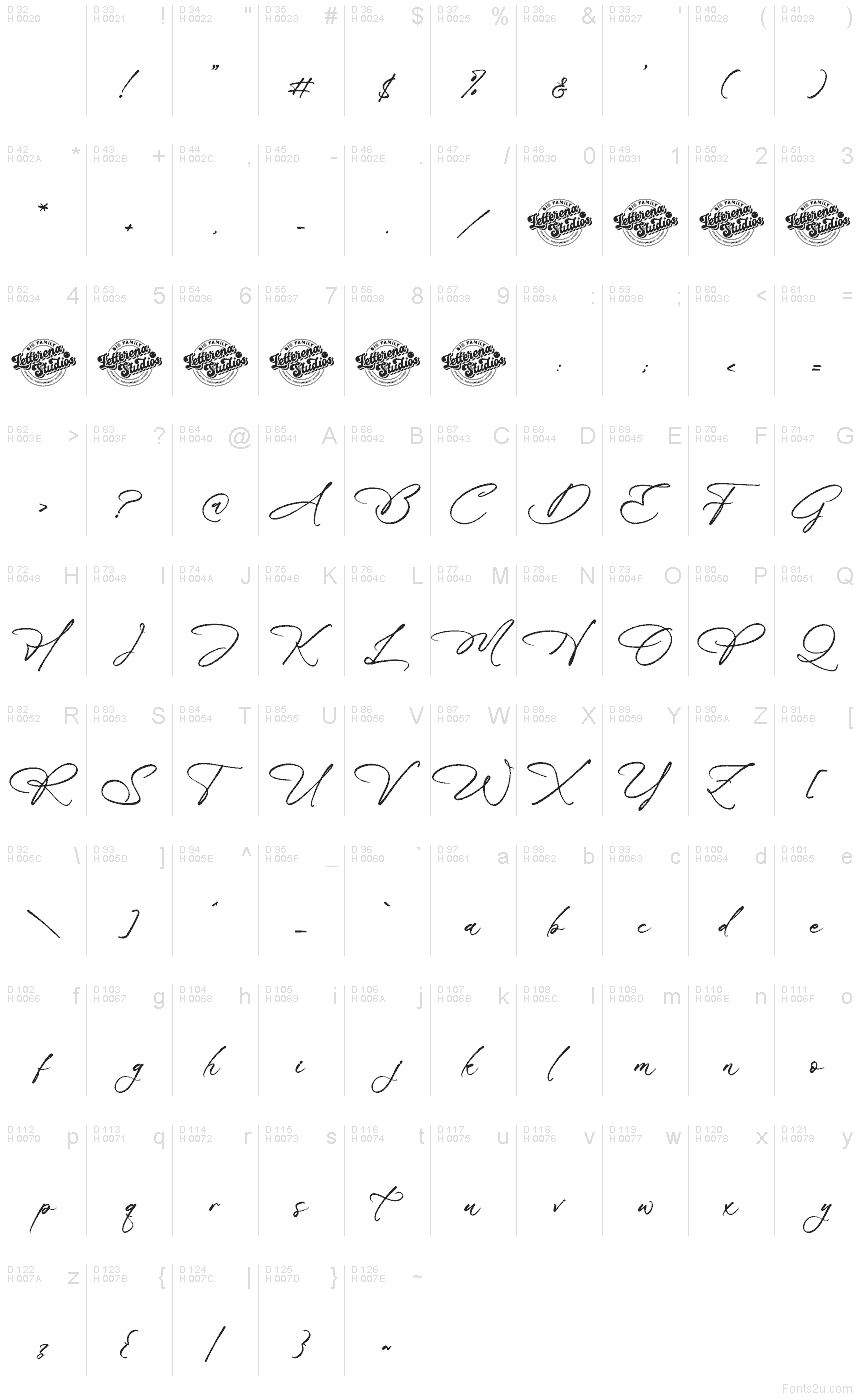
Blissfuly Magnotia font by Letterena Studios is a free handwritten signature font. It glides with long, airy swashes and inky, feather-light strokes, giving every word a sense of movement and polish. The letters link with a relaxed rhythm-luxe without feeling stuffy-so names, short phrases, and taglines read as a single, graceful gesture.
Using Blissfuly Magnotia, you can elevate wedding invitations, boutique logos, beauty packaging, photography watermarks, event signage, and elegant greeting cards. The generous loops create a romantic presence that shines at display sizes-let the swashes breathe. Pair this free font with a crisp, understated sans for supporting text to keep the spotlight on the script’s flowing charm.